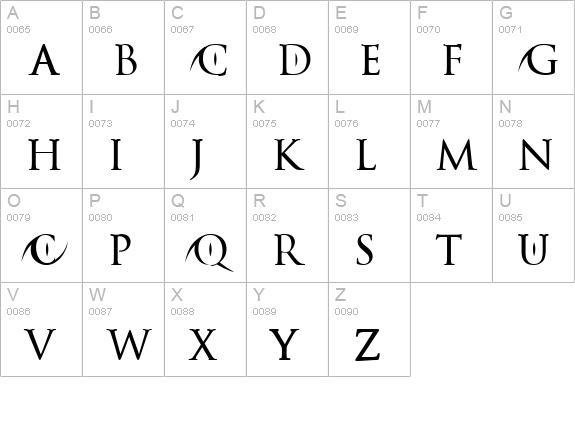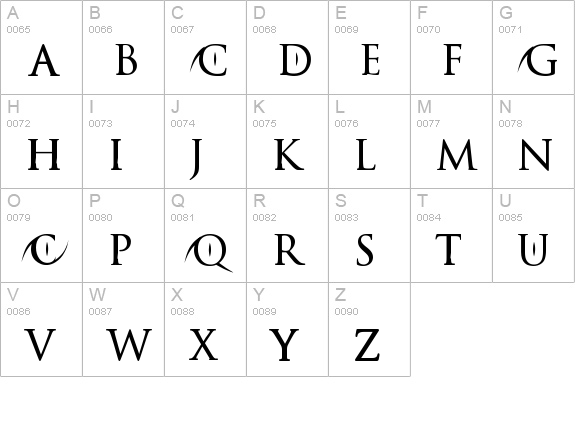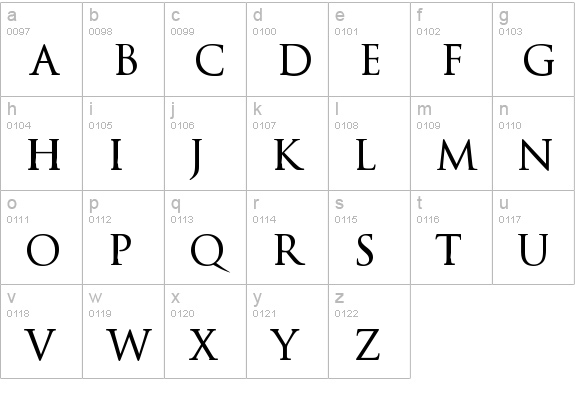
Catwoman Font Details
Introducing Catwoman font, a sleek and sophisticated typeface inspired by the iconic feline character. This elegant font exudes a sense of mystery and allure, perfect for capturing attention and making a statement in your designs. With its curvaceous letterforms and unique style, Catwoman font is sure to add a touch of glamour to any project. What's more, Catwoman font is available for free download at FontsMarket.com. Don't miss out on the opportunity to enhance your creative work with this stunning typeface. Whether you're designing a logo, poster, or website, Catwoman font is the perfect choice to bring a touch of elegance and sophistication to your projects. Download it now and unleash your inner Catwoman!